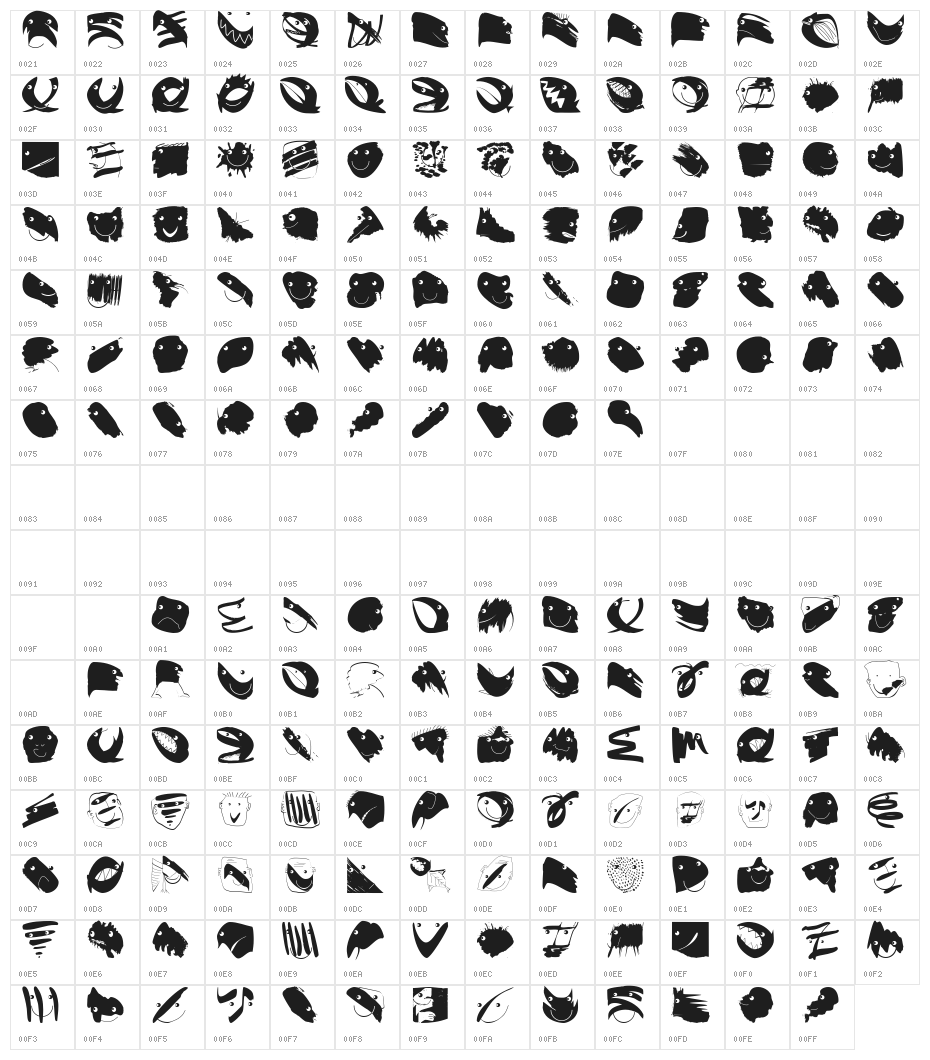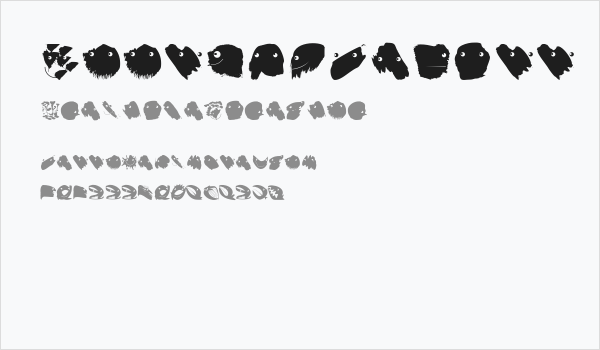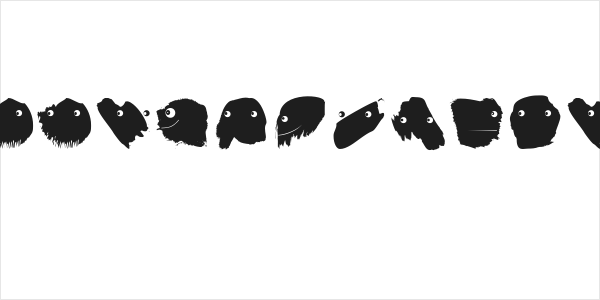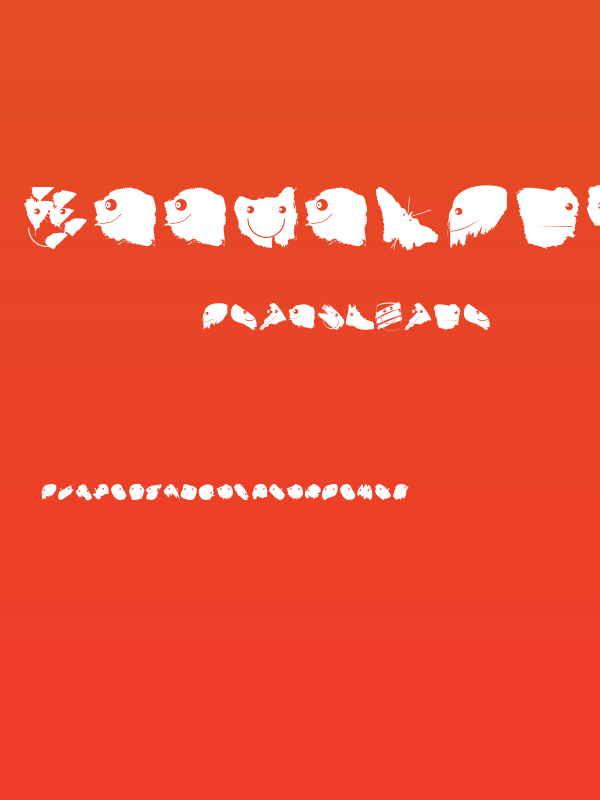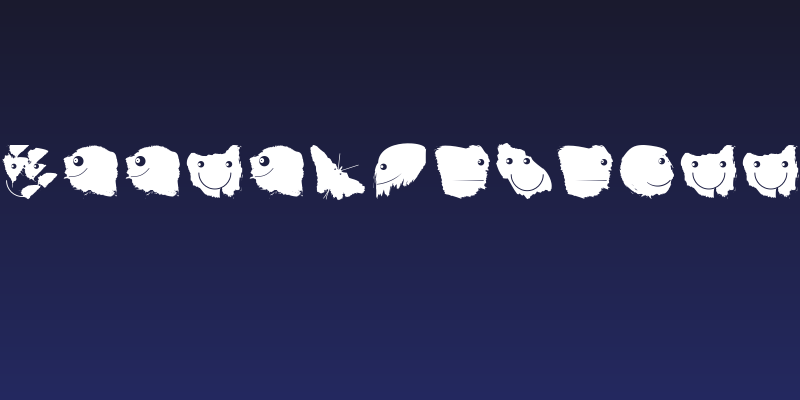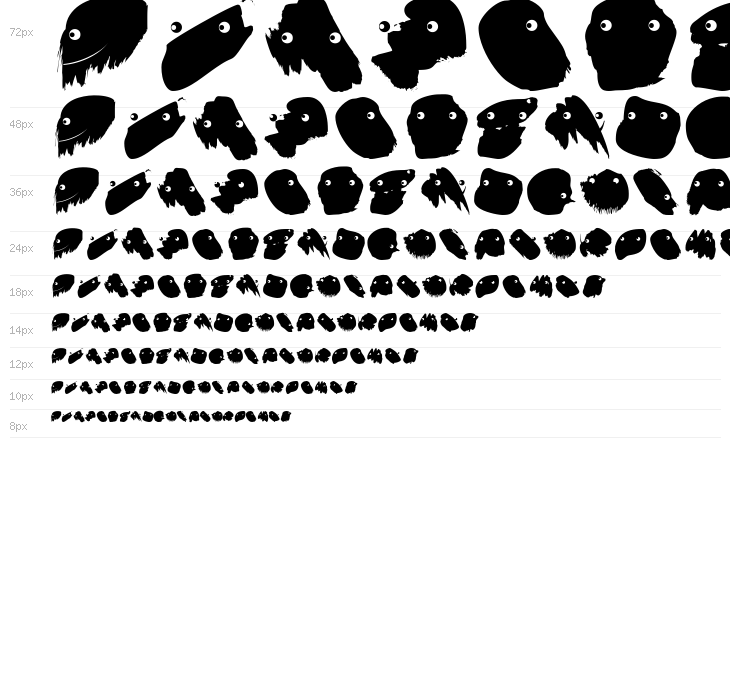
FoolOnTheHill Font
FoolOnTheHill Description
This font is a whimsical and playful design, characterized by its unique and abstract shapes that resemble quirky creatures or faces. Each character is distinct, with exaggerated features and a bold, artistic flair. The style is highly decorative, making it stand out with its imaginative and creative forms. The font's design is more illustrative than traditional, offering a sense of fun and creativity. It's perfect for projects that require a touch of humor or artistic expression, as it captures attention with its unconventional and lively appearance.
| Use Case | Logos, Posters, Creative Branding |
| Proposed Projects | Ideal for children's book covers, playful posters, creative branding, or any project needing a fun, artistic touch. |